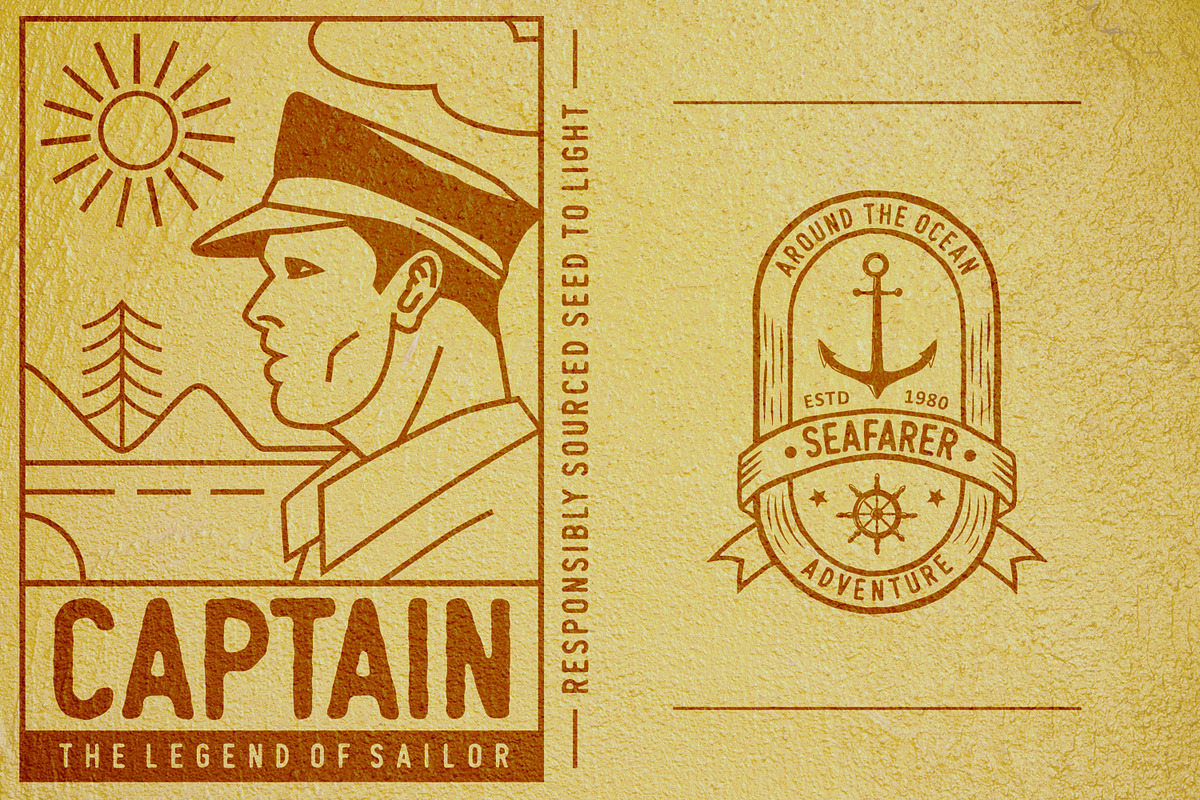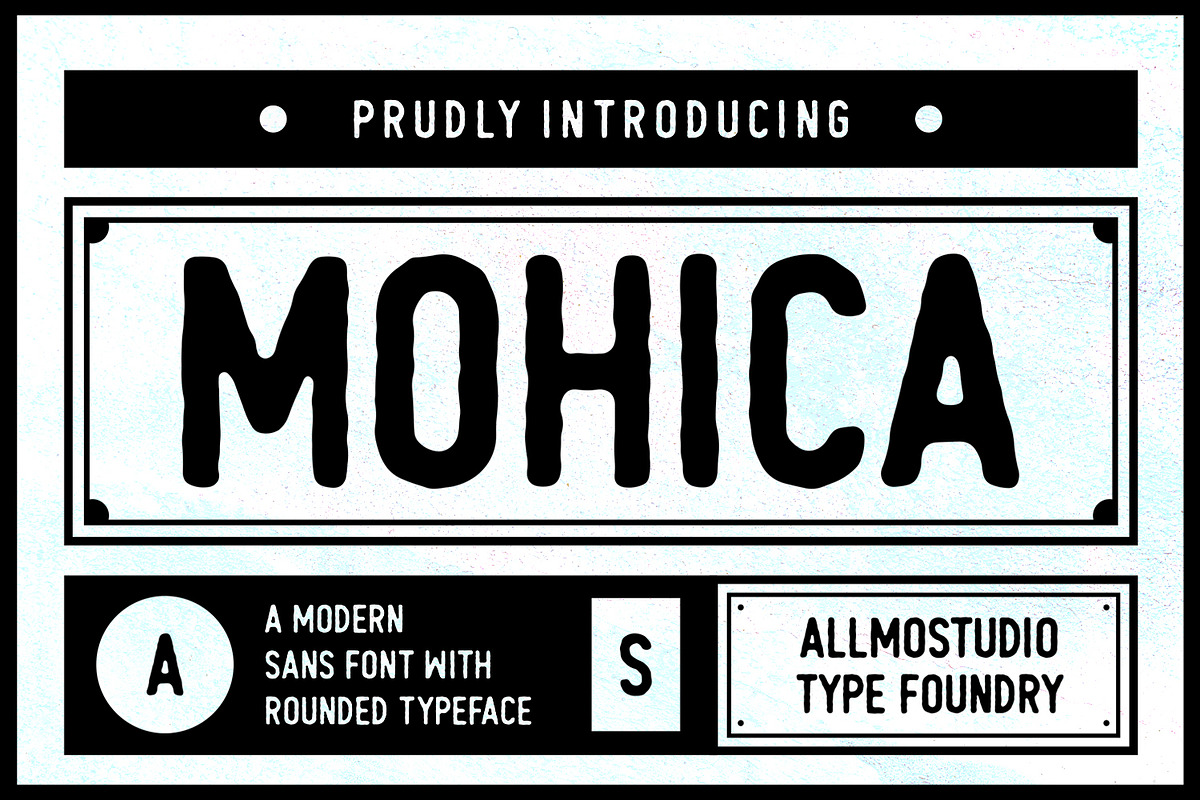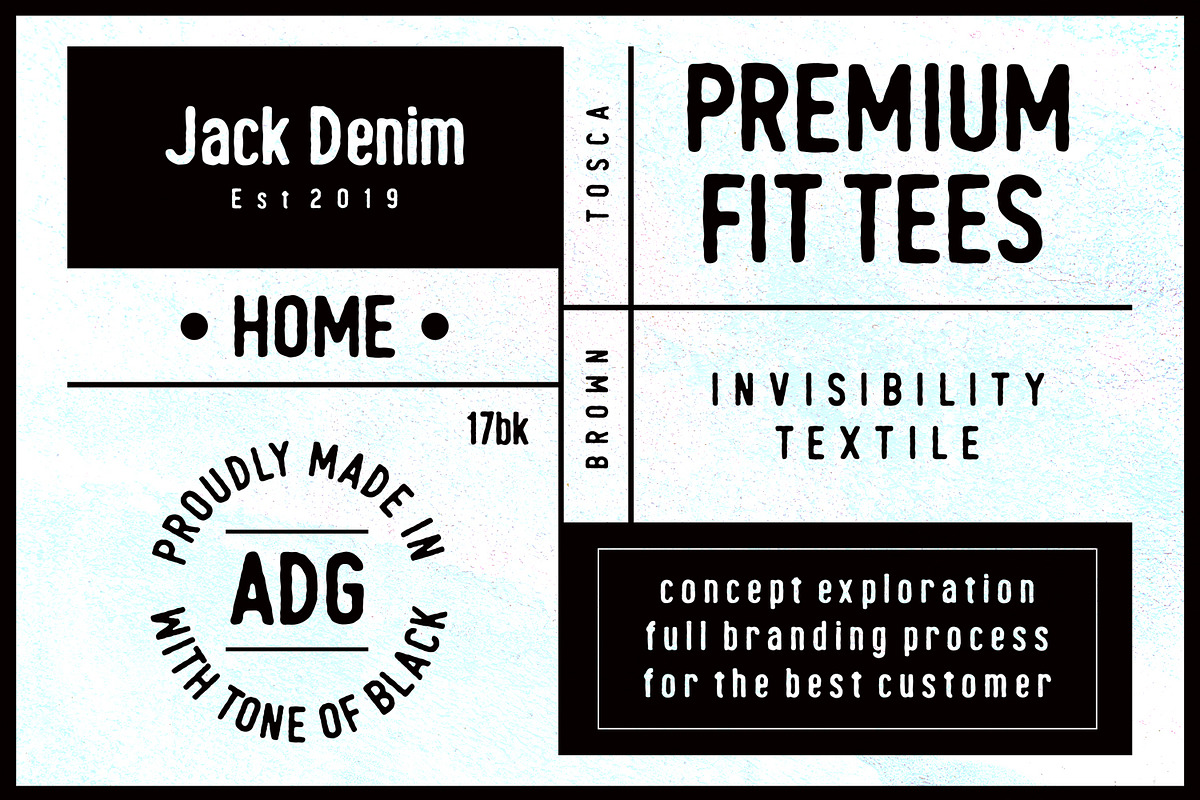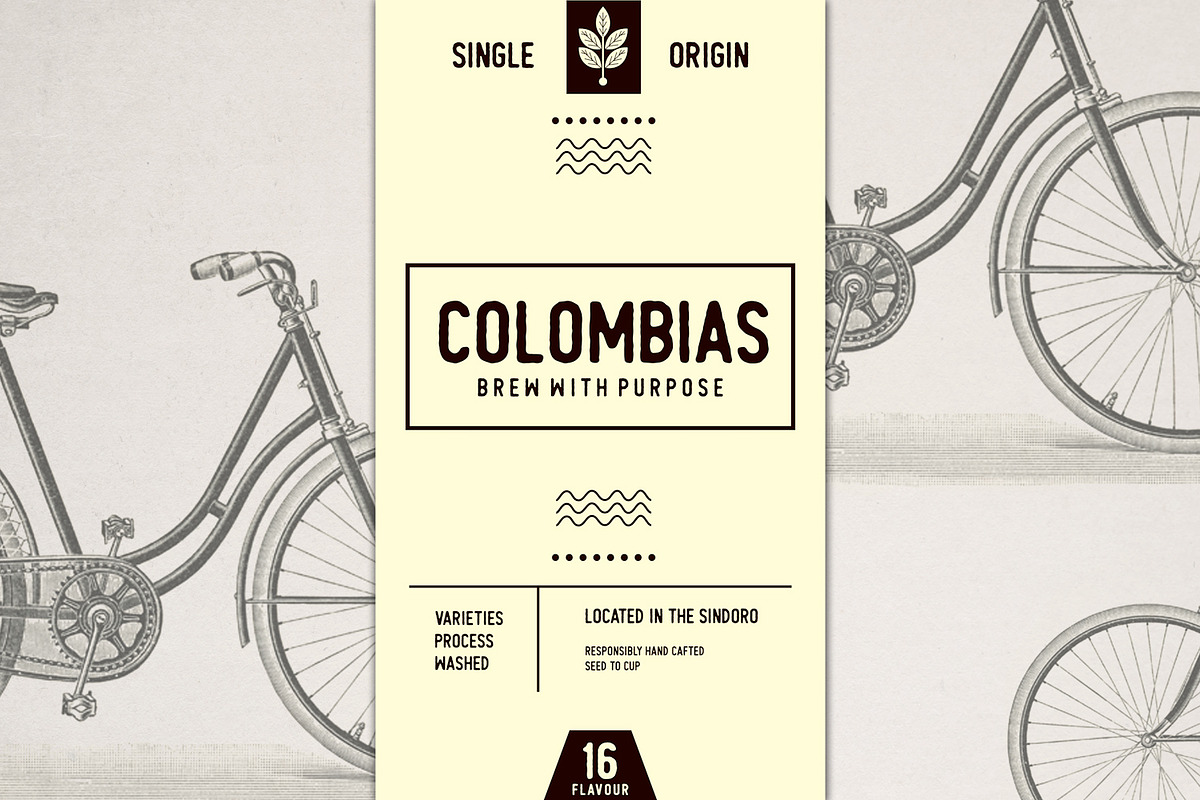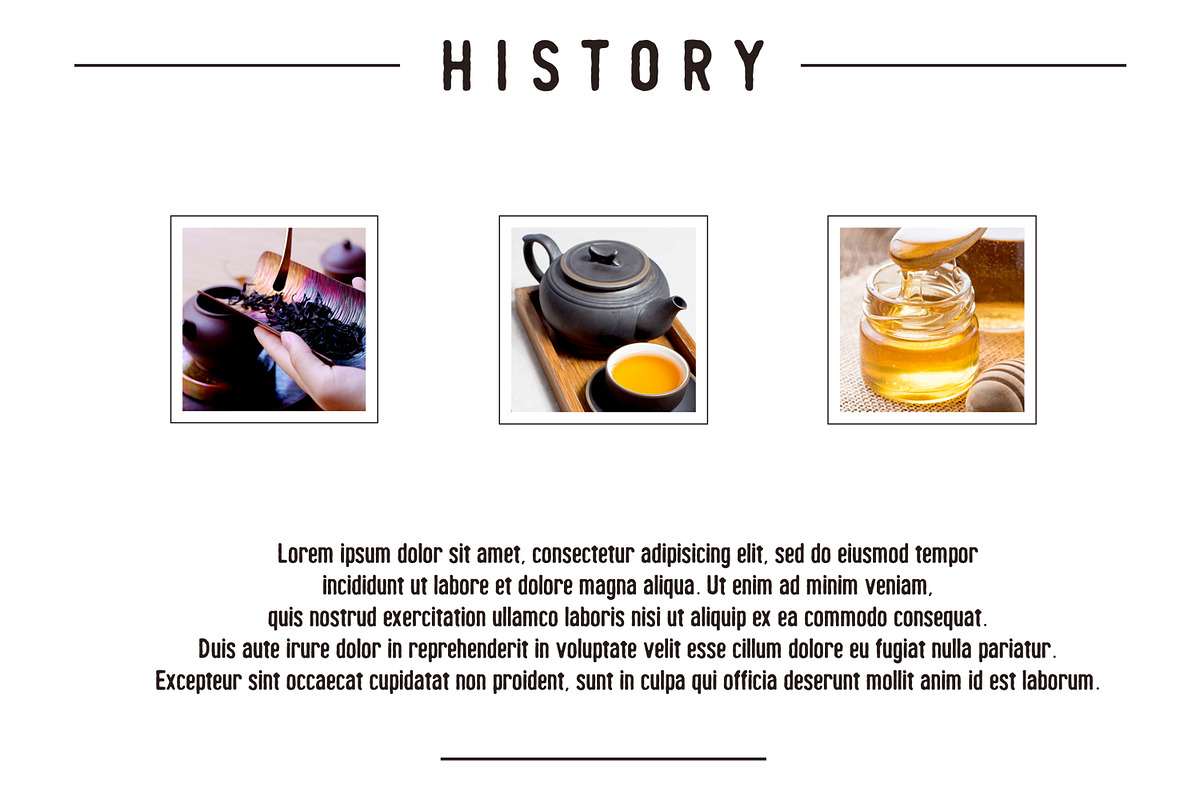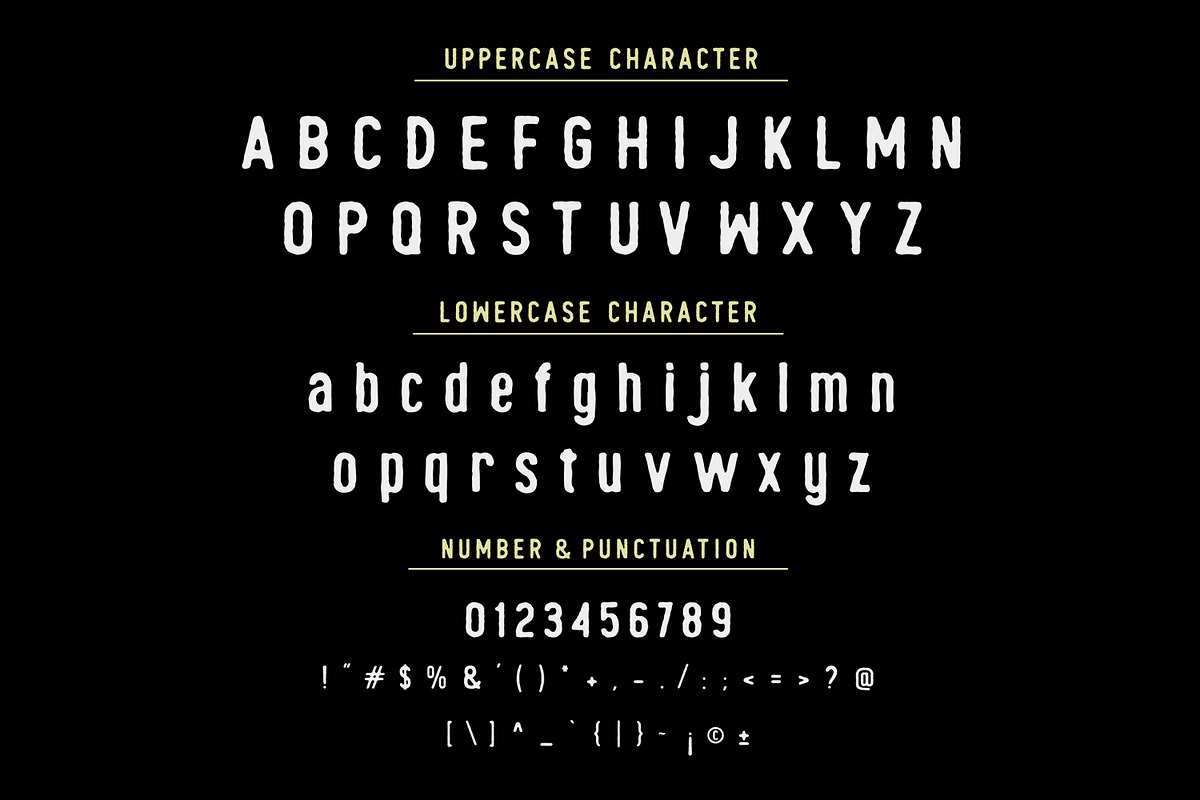
Mohica Font
Mohica Font was made with a touch of vintage and combinating with modern design I've been created Rounded edges and add to the characters to give that old school printing vibe to make your design more awesome. This font will work on any media, perfectly match your vintage design, logo, labels, badges, posters and etc.